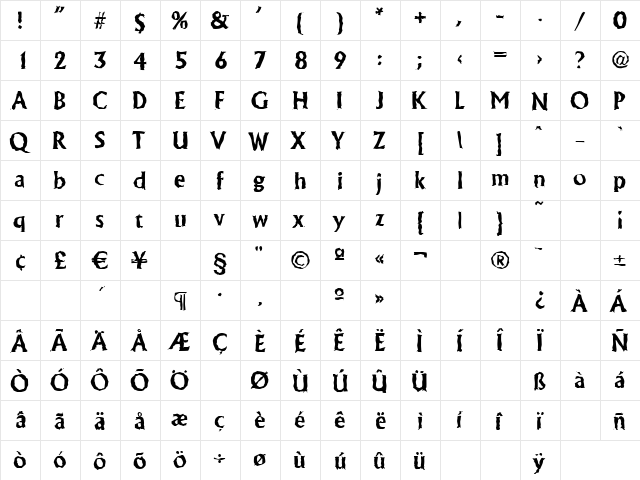
JacobBeckerRandom Bold
Design Context for JacobBeckerRandom Typeface
JacobBeckerRandom is a composed and adaptable typeface that performs quietly and consistently across a wide range of design contexts. Its bold stroke weight gives it real presence on the page.